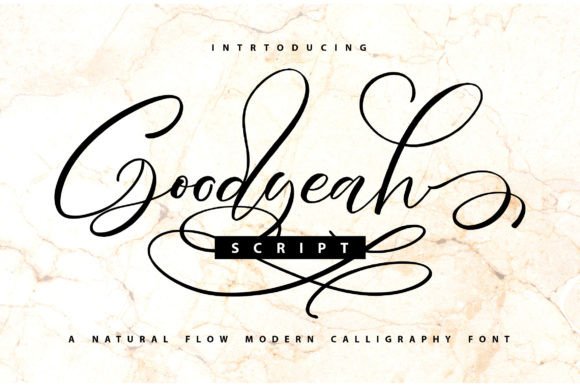
Are you searching for a font that captures the essence of artistry and uniqueness, a font that transcends the ordinary and ignites your creative spirit? Look no further than Goodyeah, the remarkable script font that will transform your designs into captivating masterpieces.
Goodyeah is not just a font; it's an experience, a journey into the realm of artistic expression. With its meticulously crafted curves and intricate details, Goodyeah possesses an allure that is both enchanting and captivating. Each letter dances across the page like a delicate brushstroke, leaving a trail of elegance and sophistication in its wake.
With Goodyeah as your creative companion, you'll discover new depths of expression, whether you're crafting logos that leave a lasting impression, designing invitations that exude timeless charm, or creating social media posts that captivate your audience. Goodyeah's versatility knows no bounds, making it the perfect choice for a wide range of projects, from personal to professional.
Unleash your creativity and let Goodyeah take you on a journey of visual storytelling. Embrace the beauty of hand-lettering and elevate your designs to new heights. With Goodyeah by your side, you'll create designs that resonate with your audience, leaving them in awe of your artistic prowess.